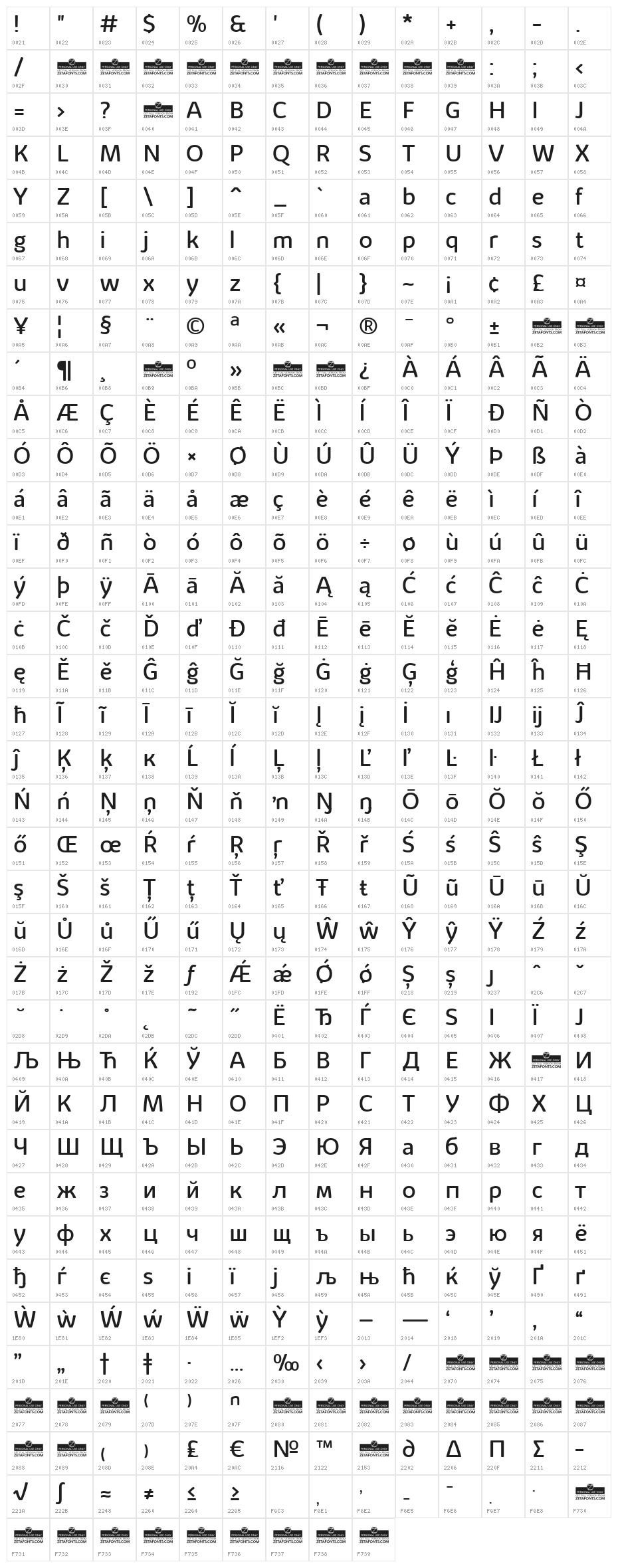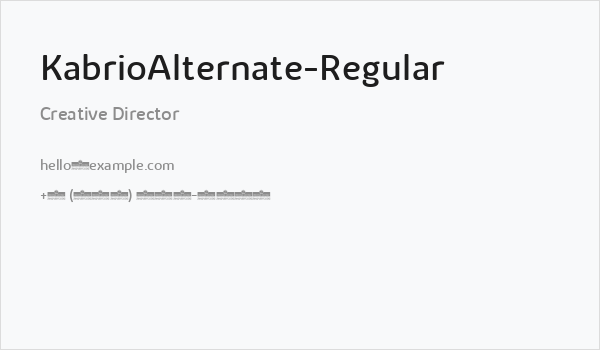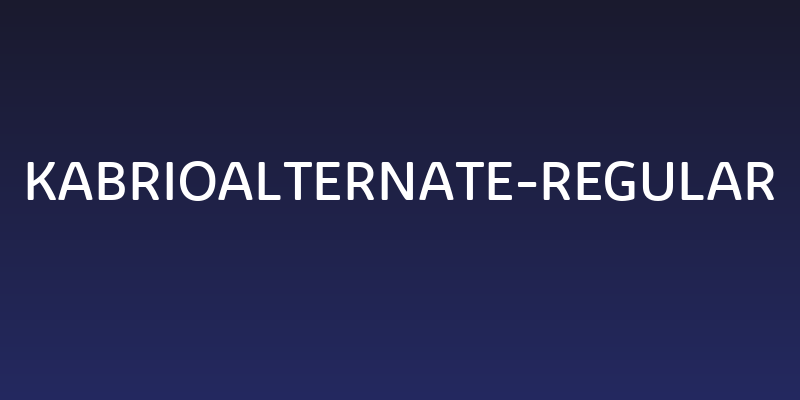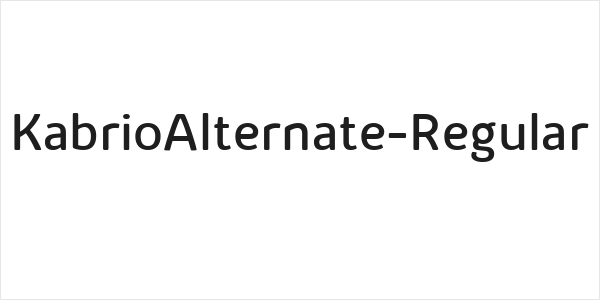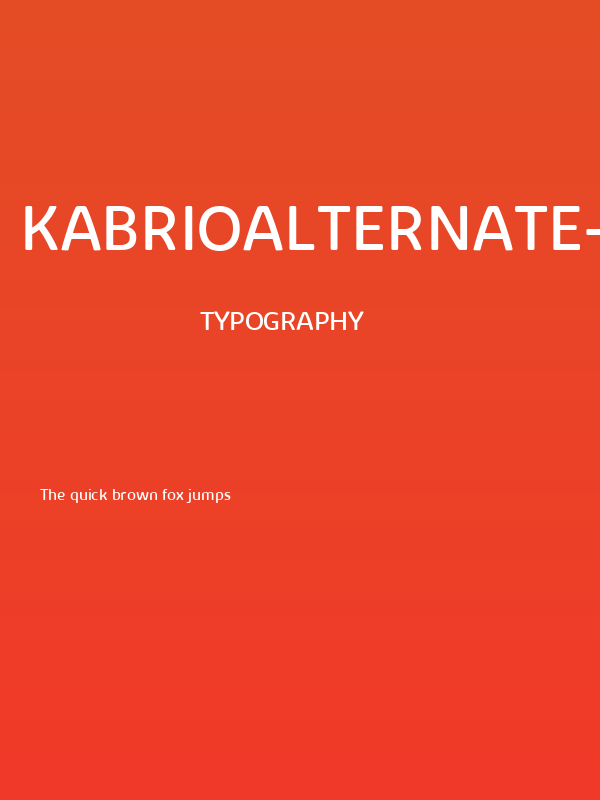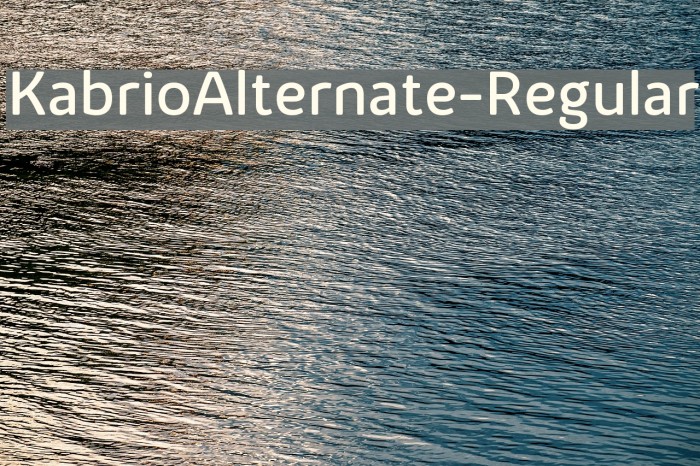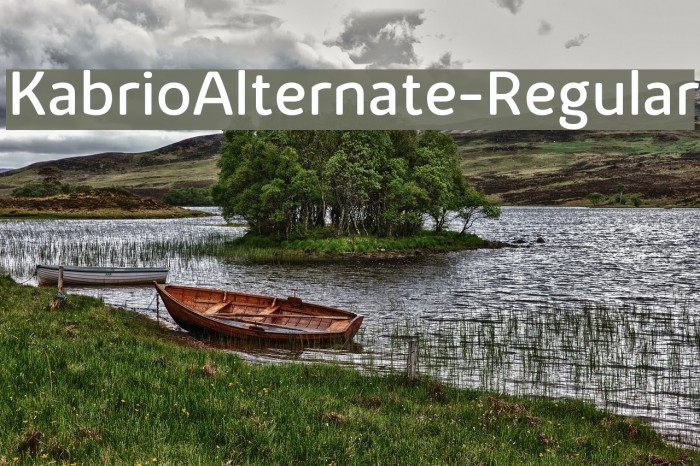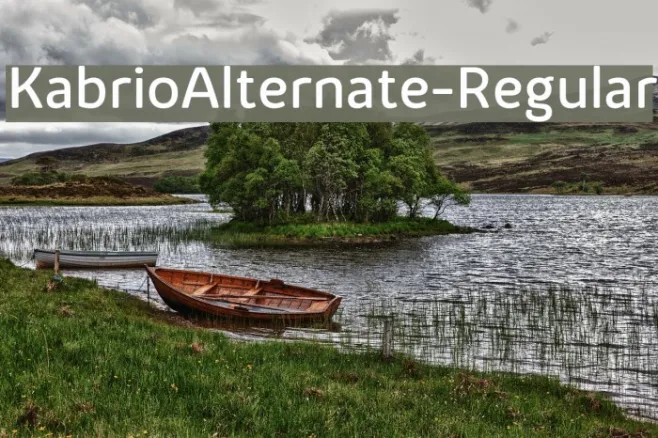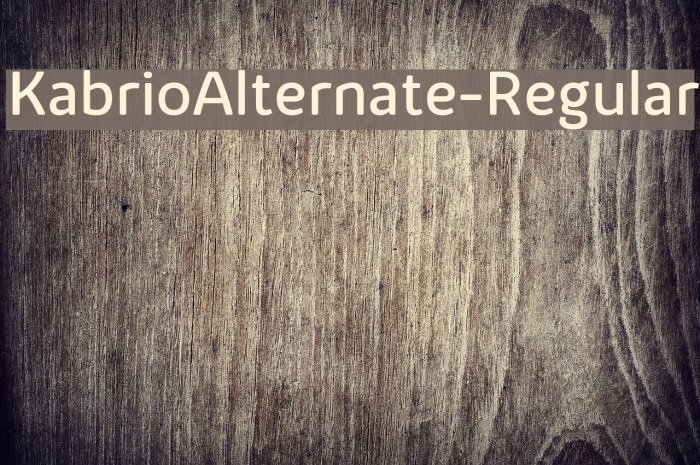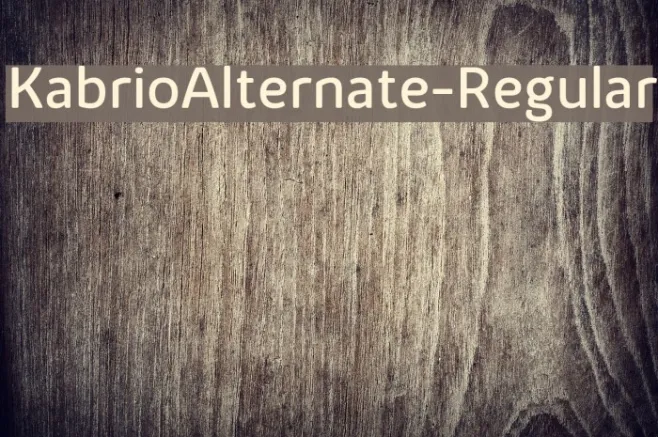
KabrioAlternate-Regular Font
KabrioAlternate-Regular Description
This font features a clean and modern sans-serif design with smooth curves and a uniform stroke width, making it highly legible and versatile. The characters are well-proportioned, with a slightly rounded appearance that adds a friendly and approachable feel. The uppercase letters are bold and assertive, while the lowercase letters maintain a consistent style that complements the overall aesthetic. The numerals are clear and distinct, ensuring readability across various applications. Special characters are thoughtfully designed to match the font's cohesive look.
| Proposed Projects | Ideal for web design, corporate branding, user interfaces, and print materials. |